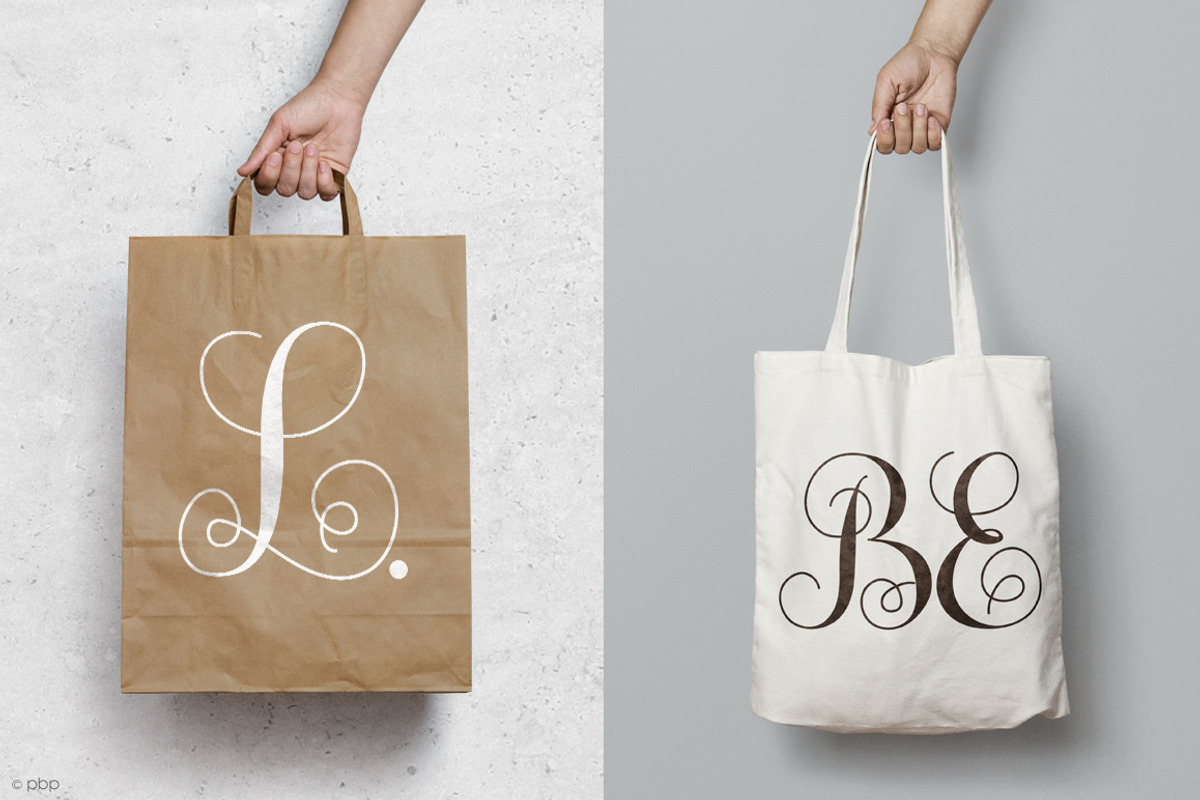
Monogram She Intertwined Monogram Font
Monogram She Intertwined Monogram Font by pixelcolours is a font selected for branding, posters, packaging, typography.
Why Monogram She Intertwined Monogram Font is worth a look
Monogram She Intertwined Monogram Font by pixelcolours fits naturally into Branding, posters, packaging, typography.